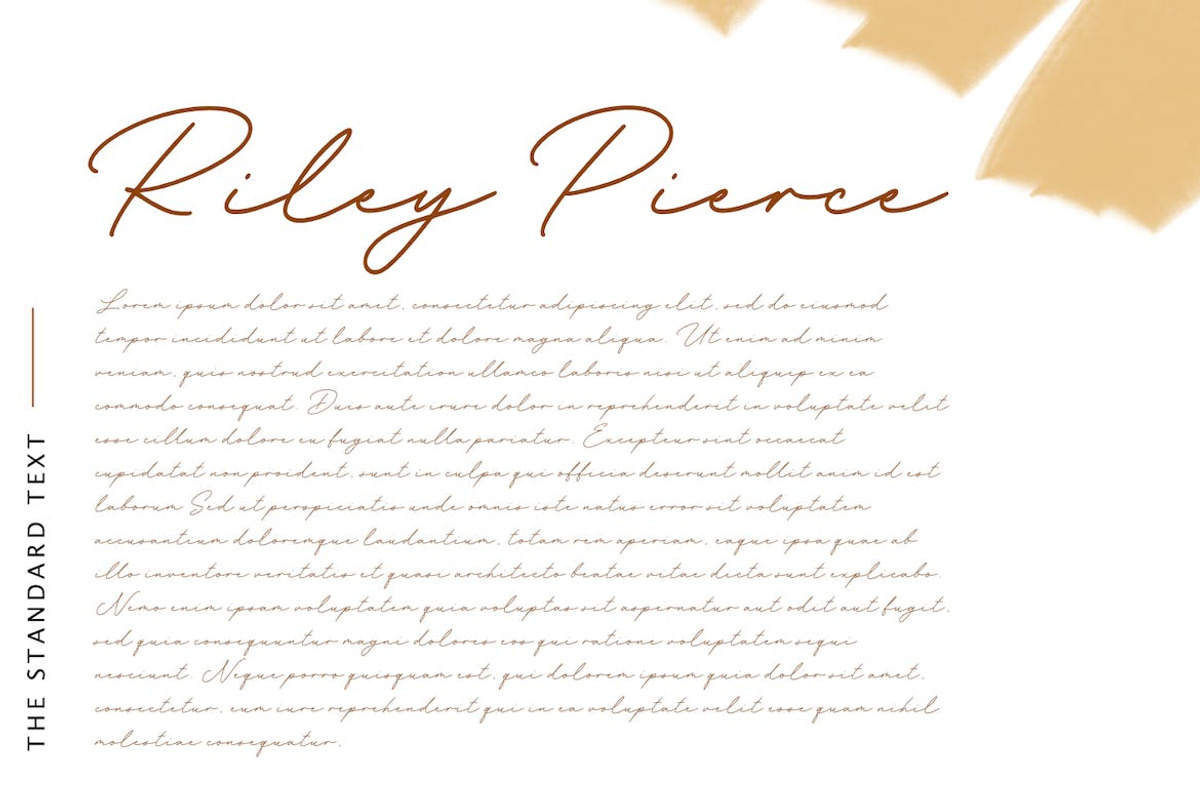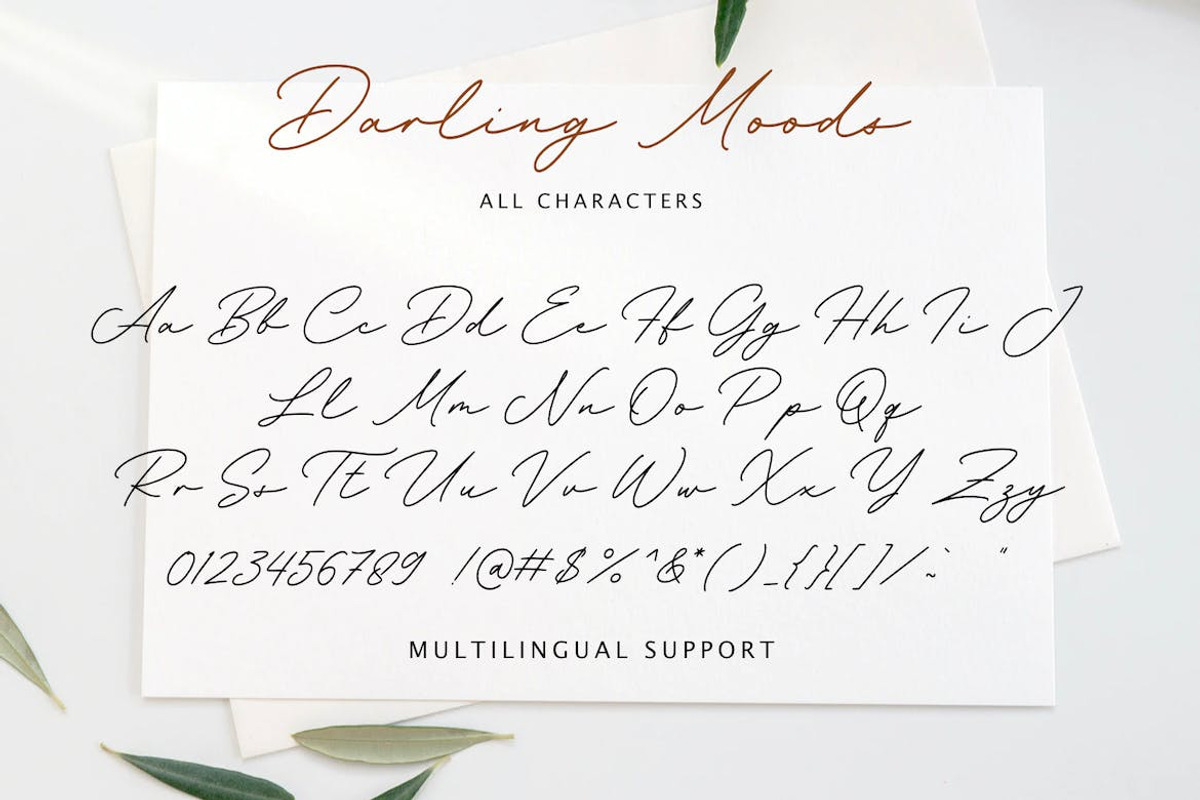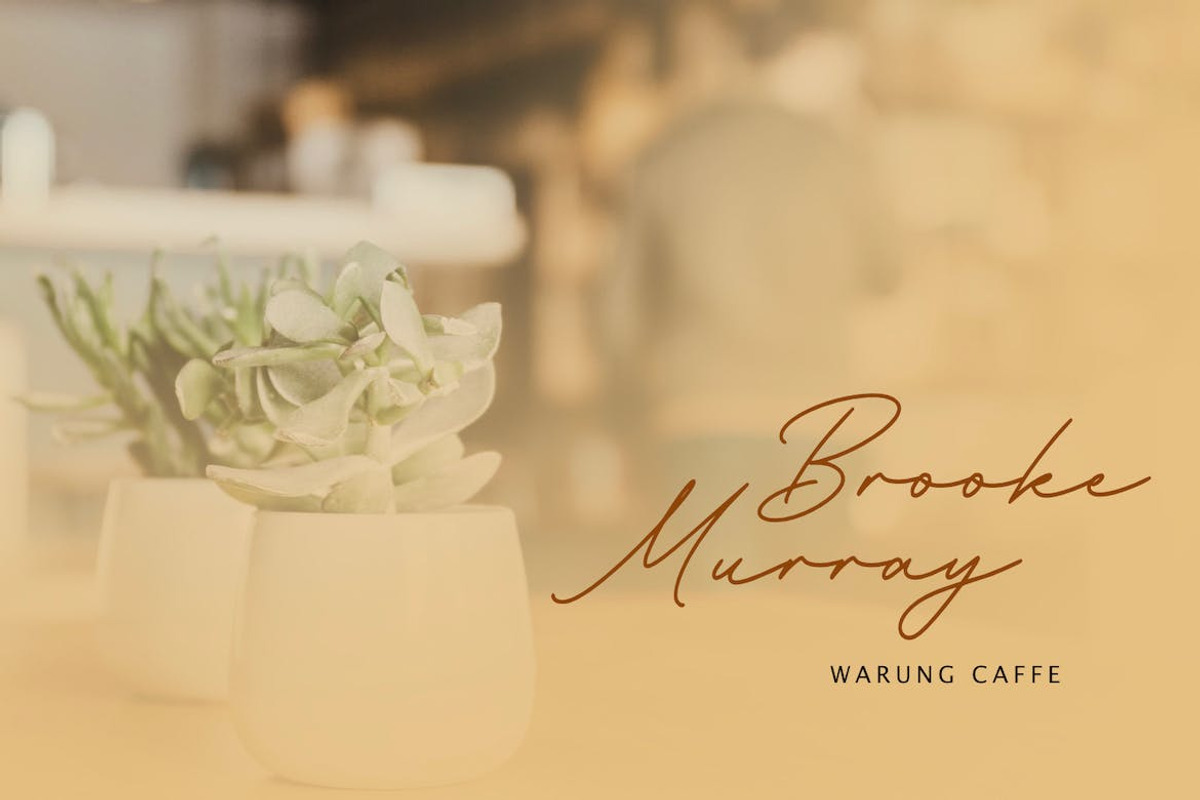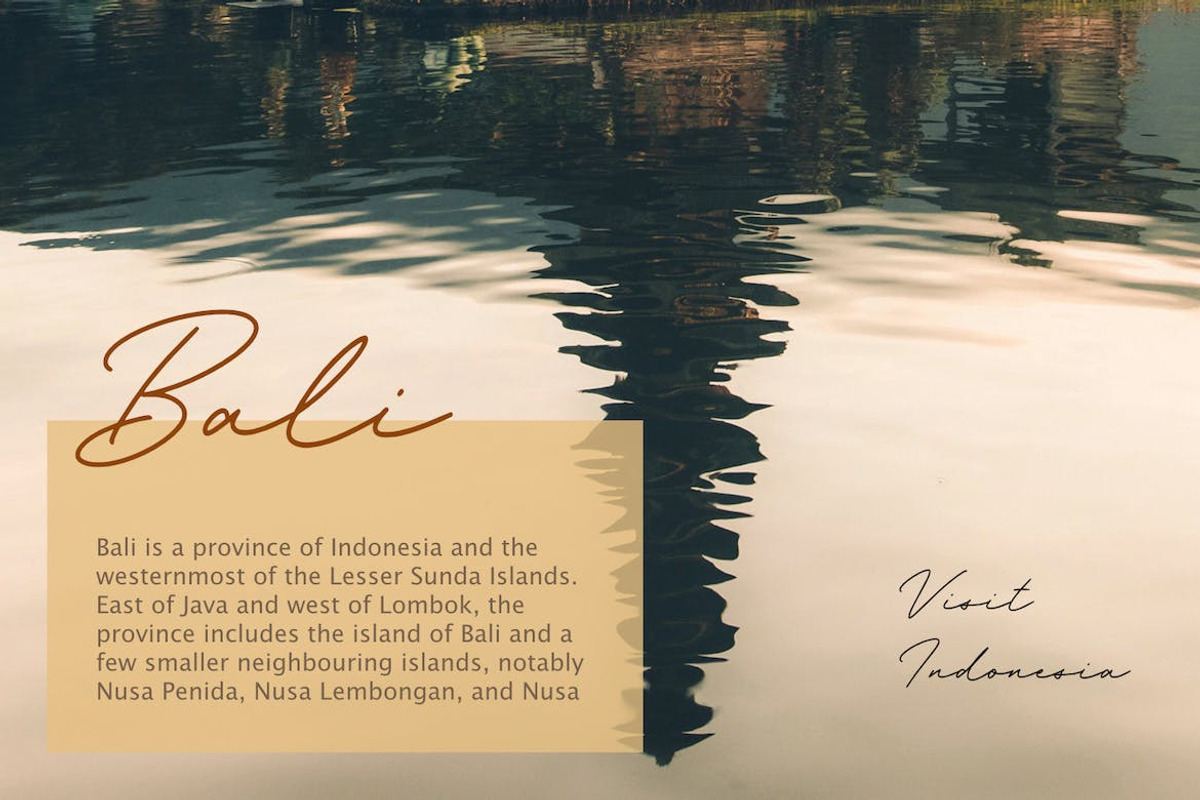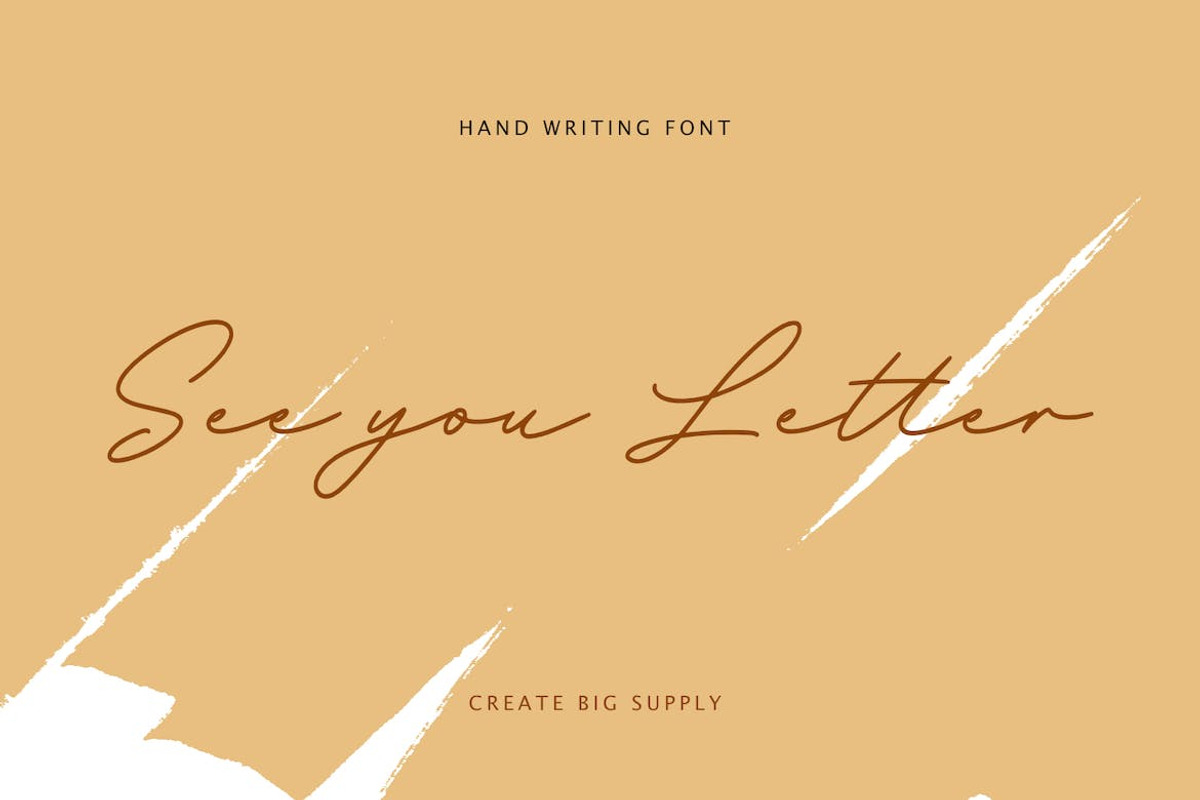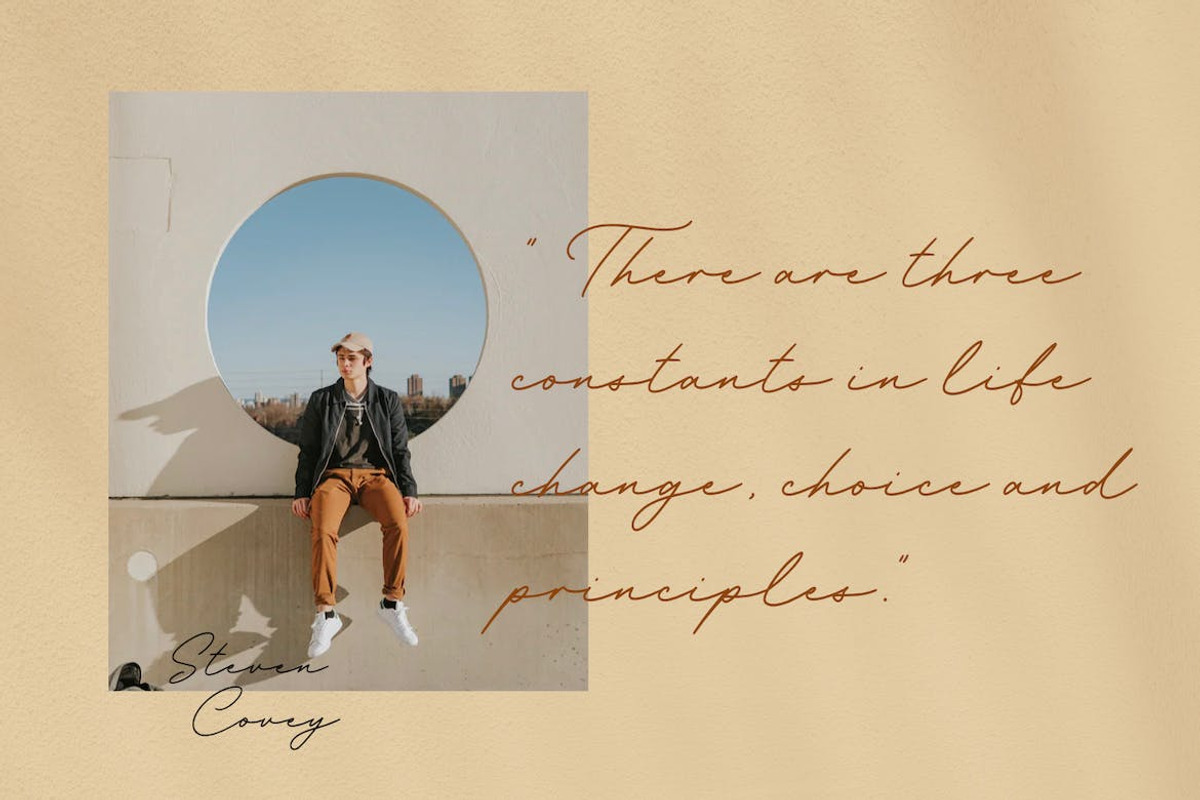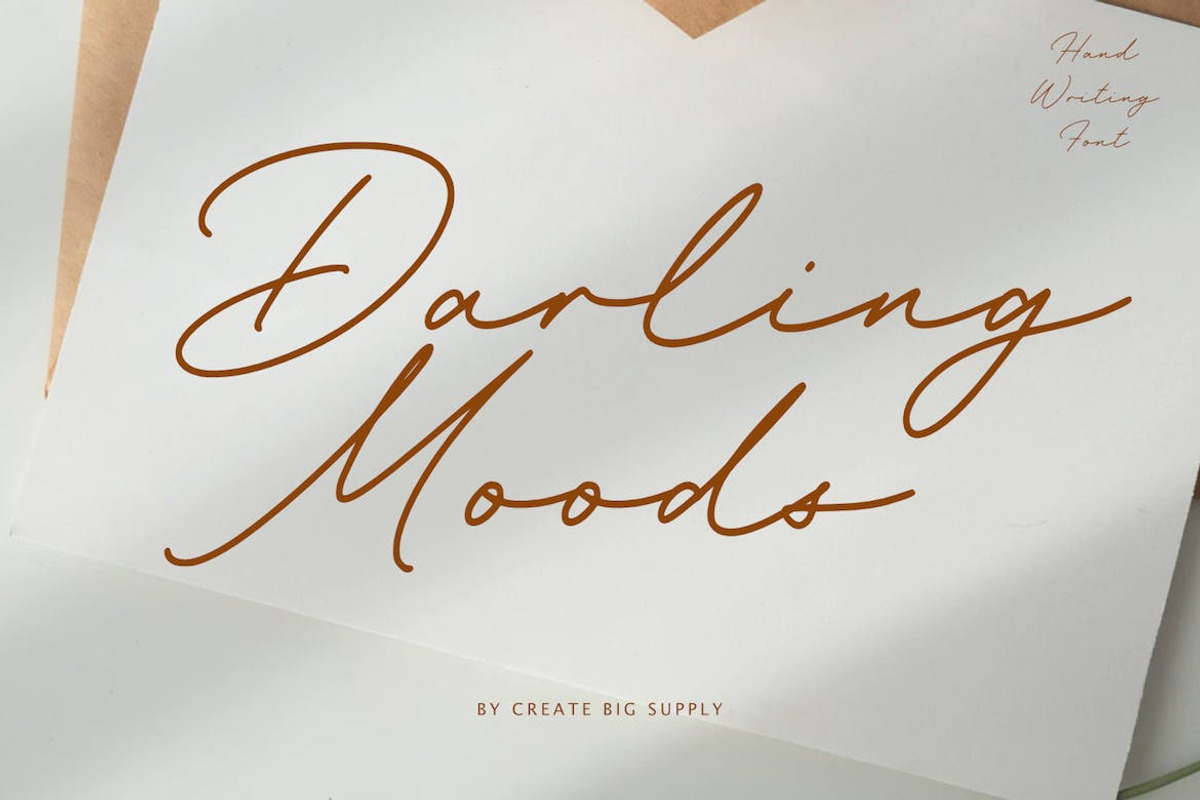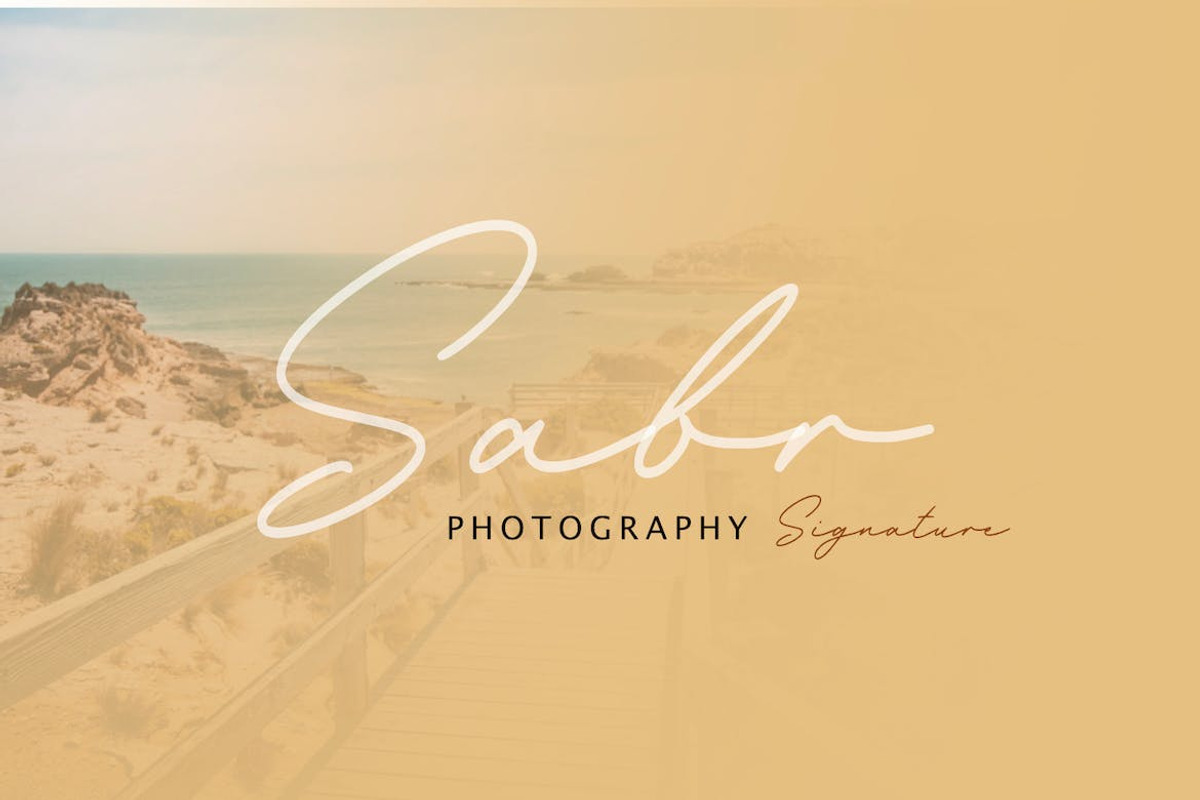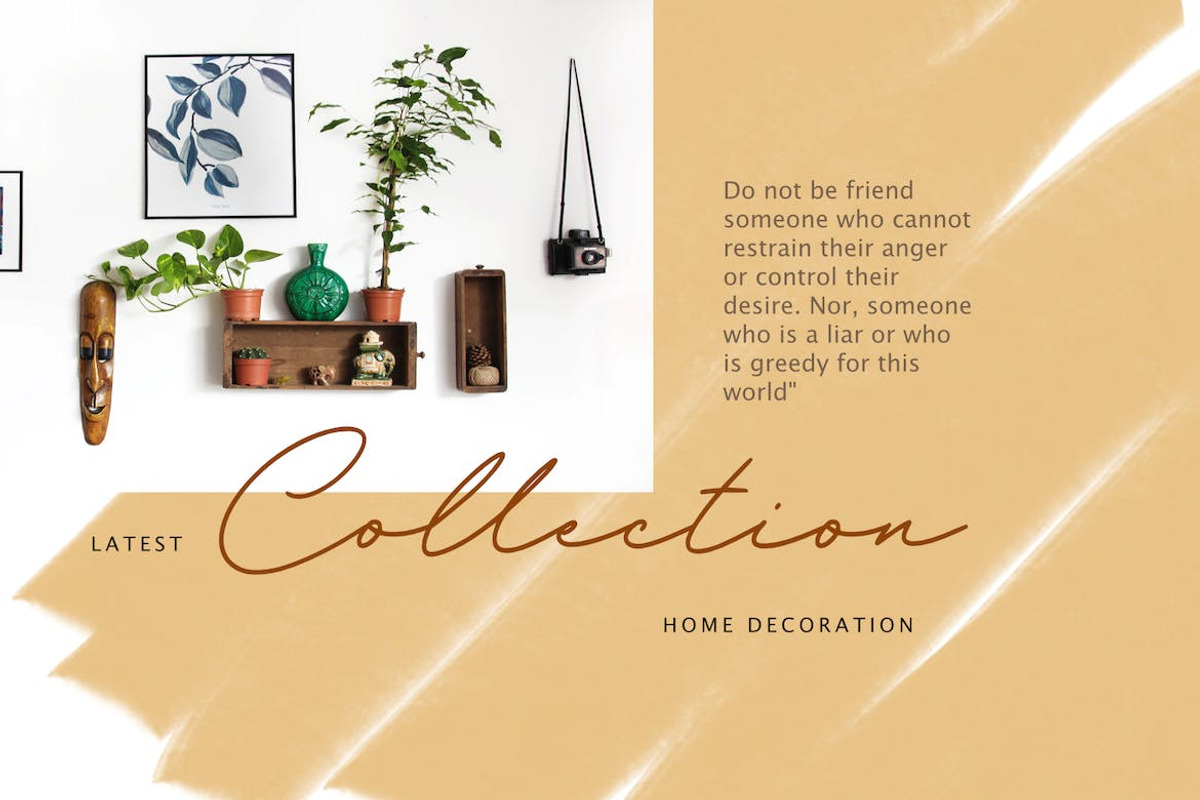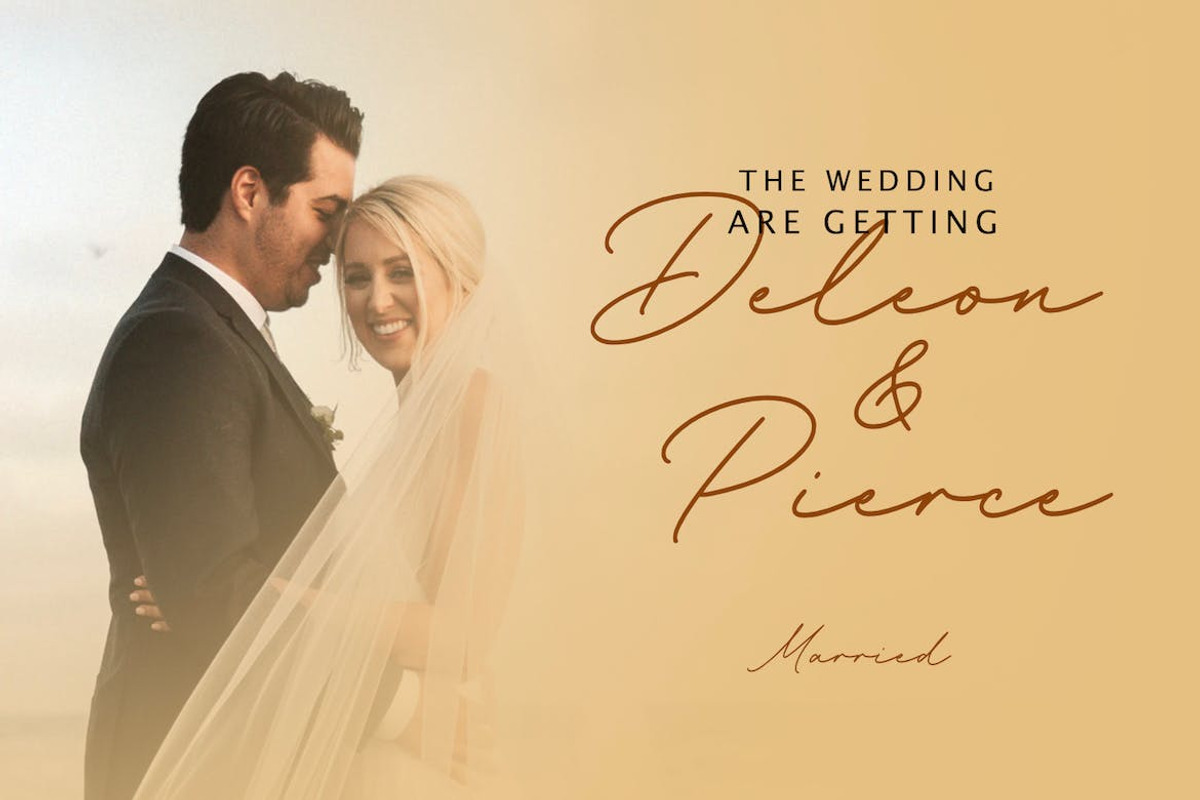
Darling Moods - Natural Handwriting
Introducing Darling Moods, a stunning natural handwriting font that exudes beauty and authenticity. With its realistic style, this font adds a touch of natural charm to your designs. Its versatility makes it ideal for various projects, ensuring a seamless fit.
Darling Moods is perfectly suited for logos, labels, magazines, books, greeting/wedding cards, packaging, fashion, book covers, and more. Its features include both uppercase and lowercase letters, numbers, punctuation marks, multilingual support, ligatures, and PUA encoding.
Embrace the natural beauty of Darling Moods and infuse your designs with an authentic handwritten feel. Experience the effortless elegance it brings to your creative endeavors.